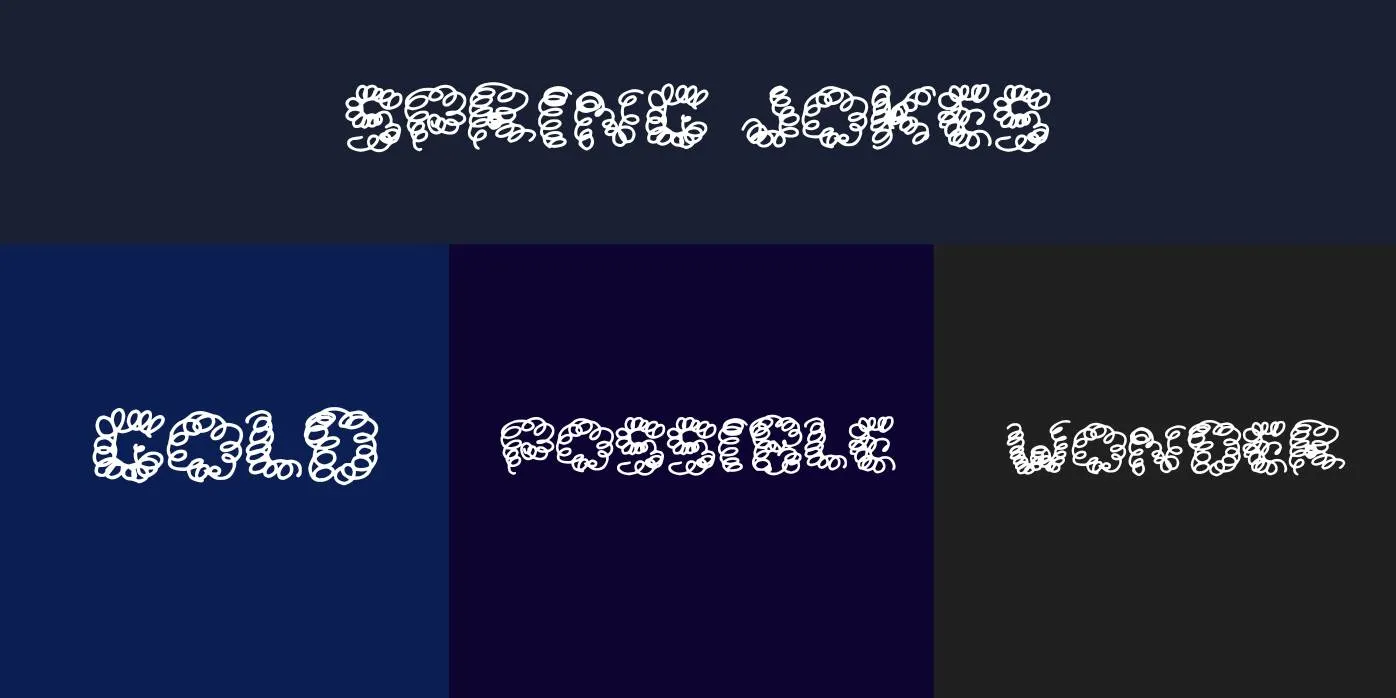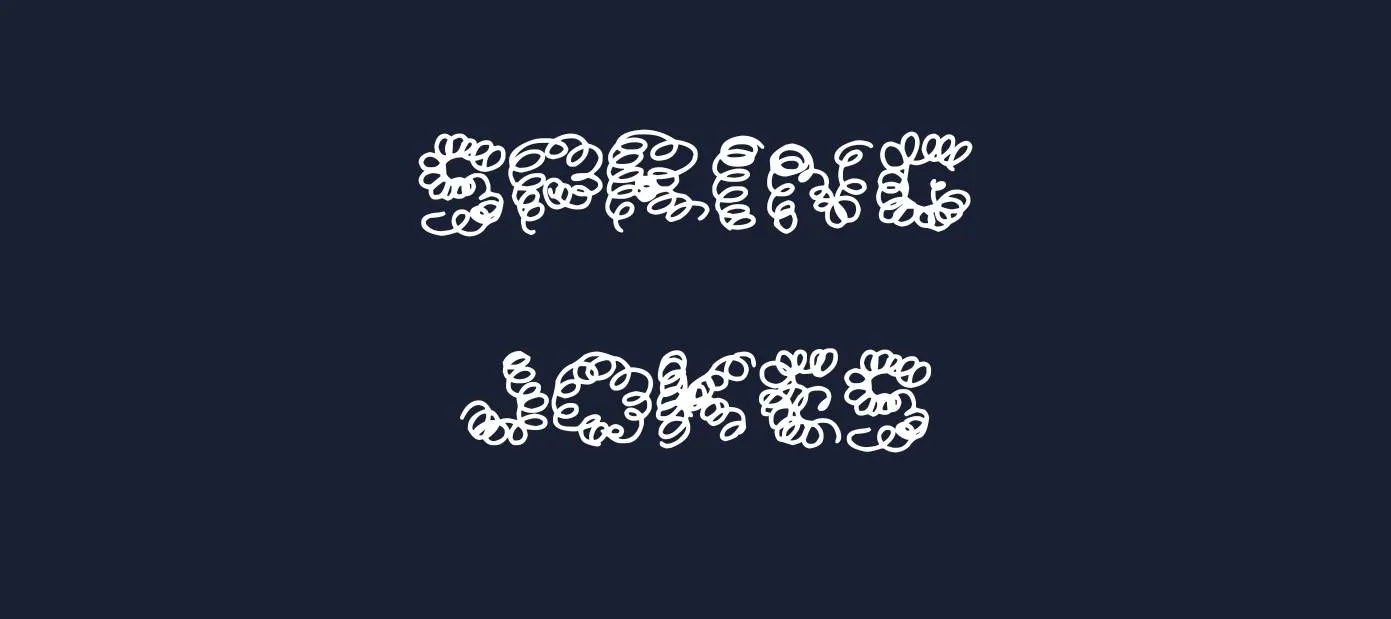
Spring Jokes Font
Spring Jokes Font is a unique display font that was designed by Darell Flood. It has a twisted flexible characters which makes it perfect for all kids-related items. After its released, it became very famous in the cartoonist world. This font style comes in a single weight that has unique uppercase, lowercase, punctuations, numerals, symbols and alternates.
Usage To make unique style of greeting cards with a funny look, then this is a perfect choice. It can be used to make social media posts on Facebook and Instagram. You can also use it in Canva  and other Illustrators for making attractive new designs or for editing. It is a good source for both print and digital media.
You can use this font for making different types of projects. Is Spring Jokes Font easy to read? It is not good to use this font for body text because its curly look became difficult to read for small projects. Can I use Spring Jokes Font to make logos?